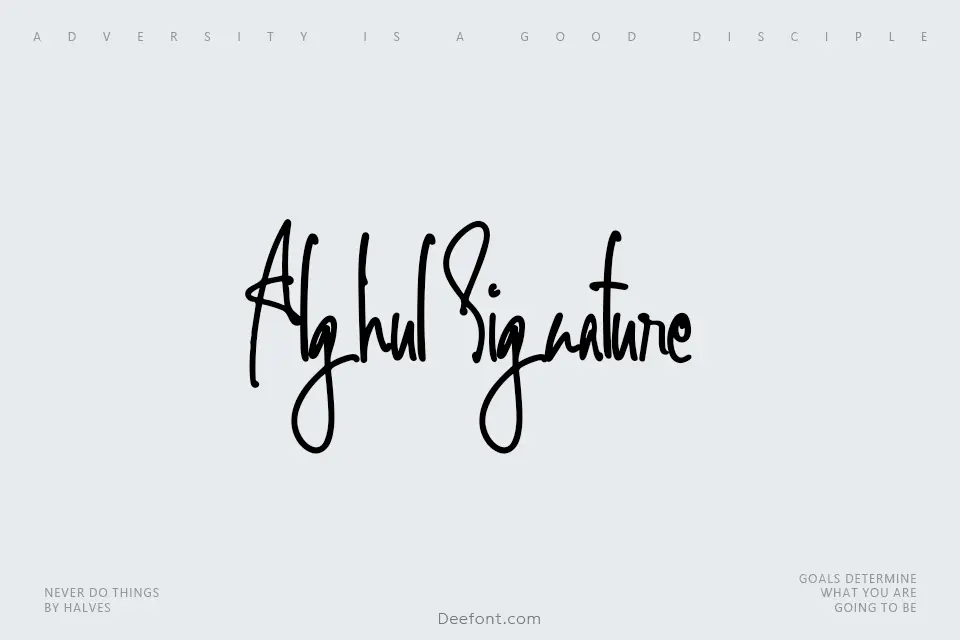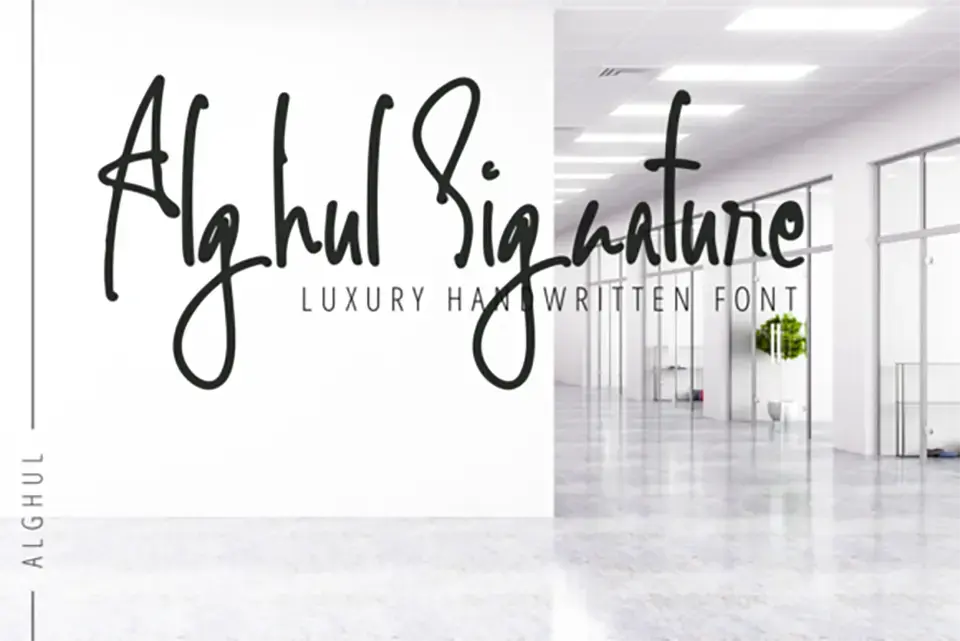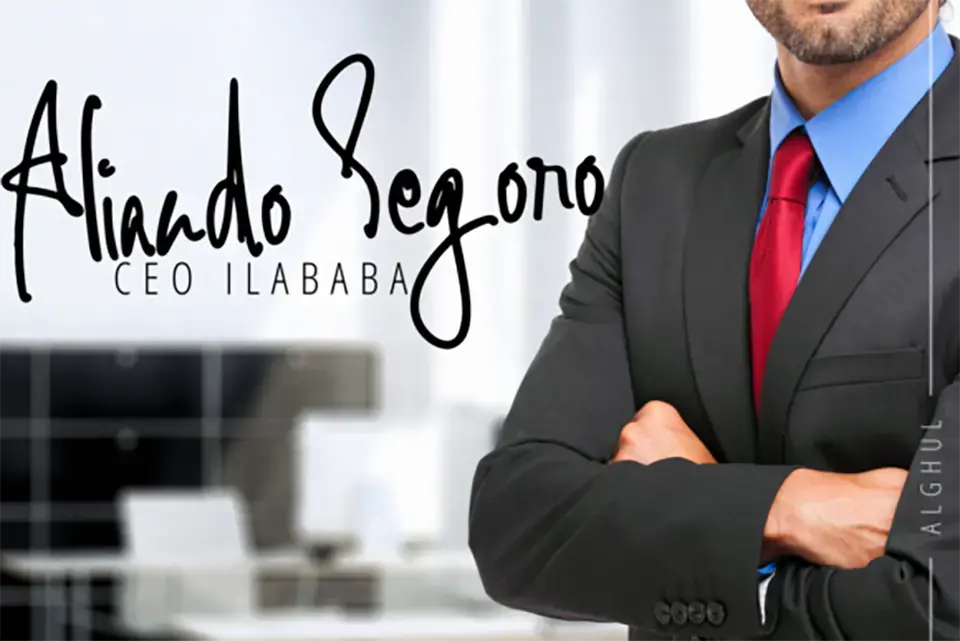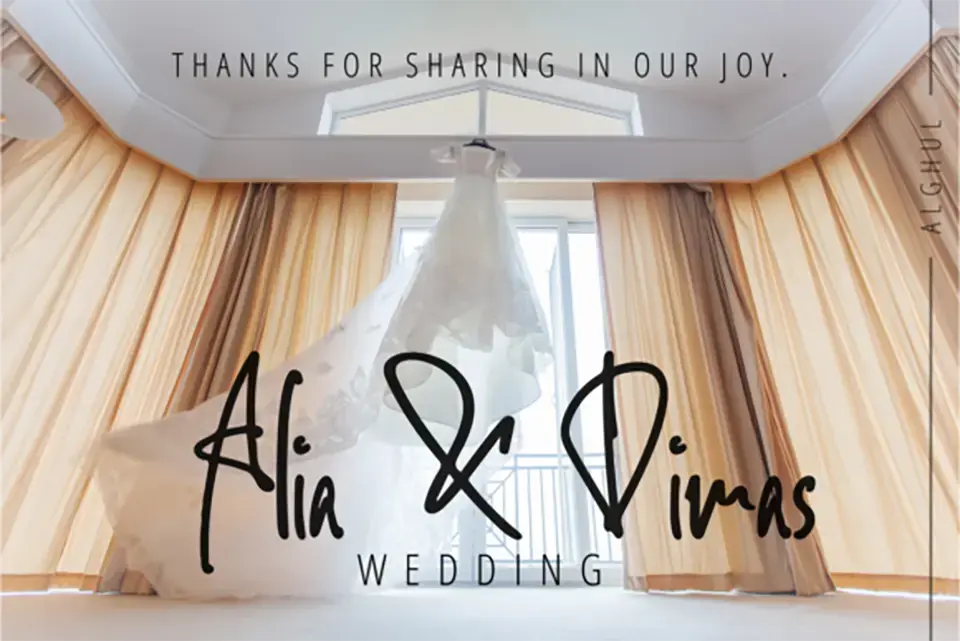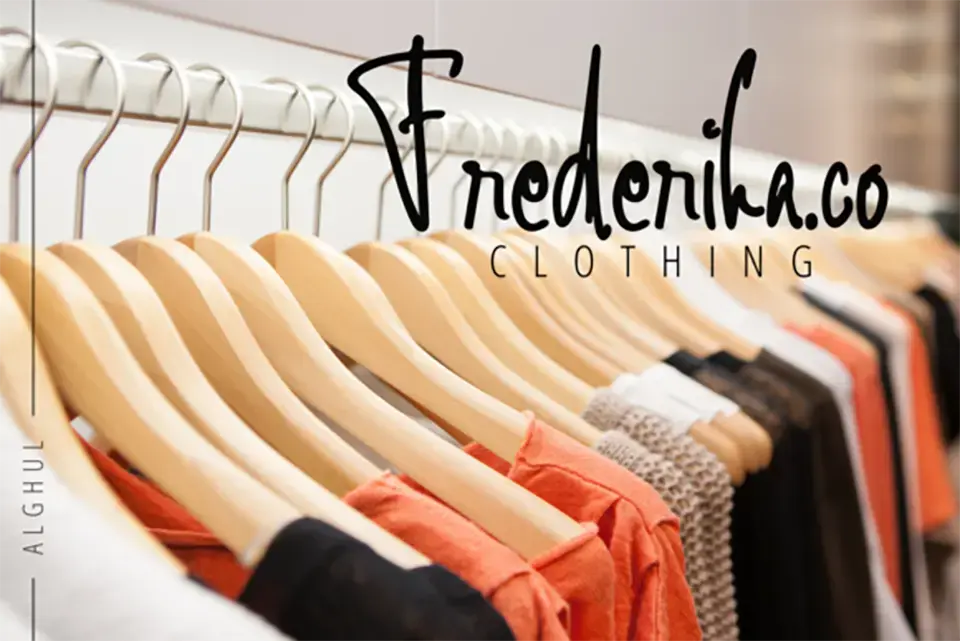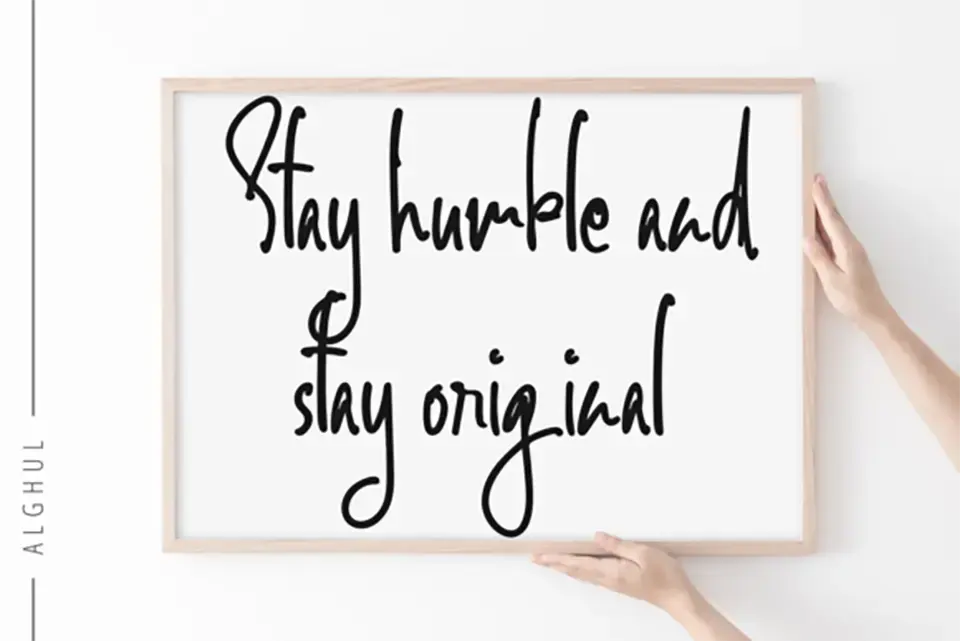
Alghul Signature Font
Alghul Signature is a flowing, elegant handwritten script typeface designed for personal creative projects. Featuring natural pen-stroke characteristics and graceful curves, this font captures the authentic charm of genuine handwriting with modern sophistication. Ideal for signatures, invitation cards, personal branding, greeting designs, and any project requiring an elegant, personal touch. The font’s smooth flourishes and organic letterforms make it perfect for adding warmth and authenticity to digital and print designs.